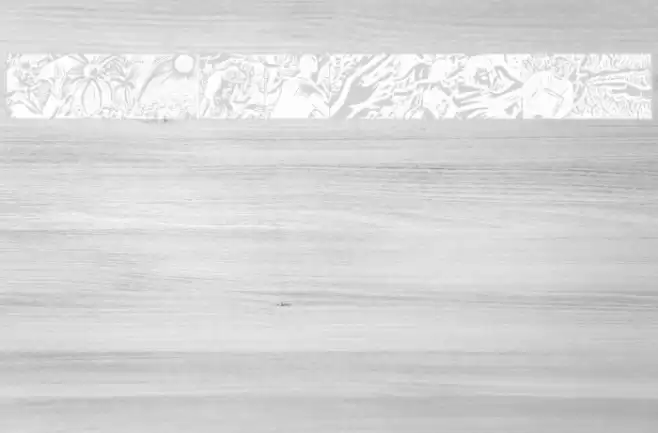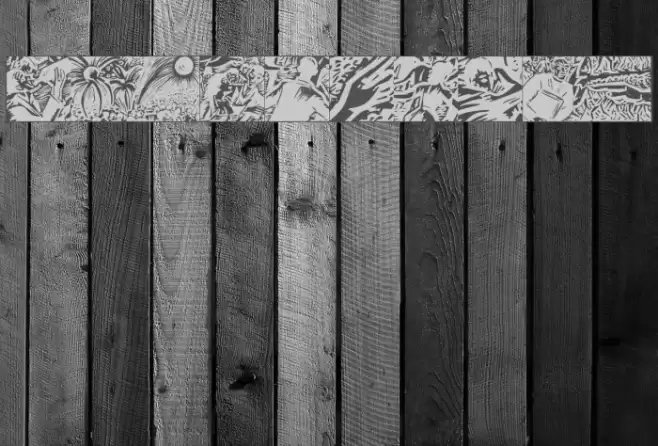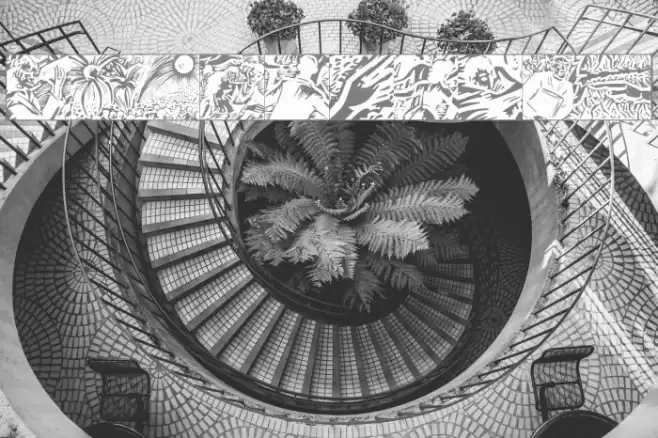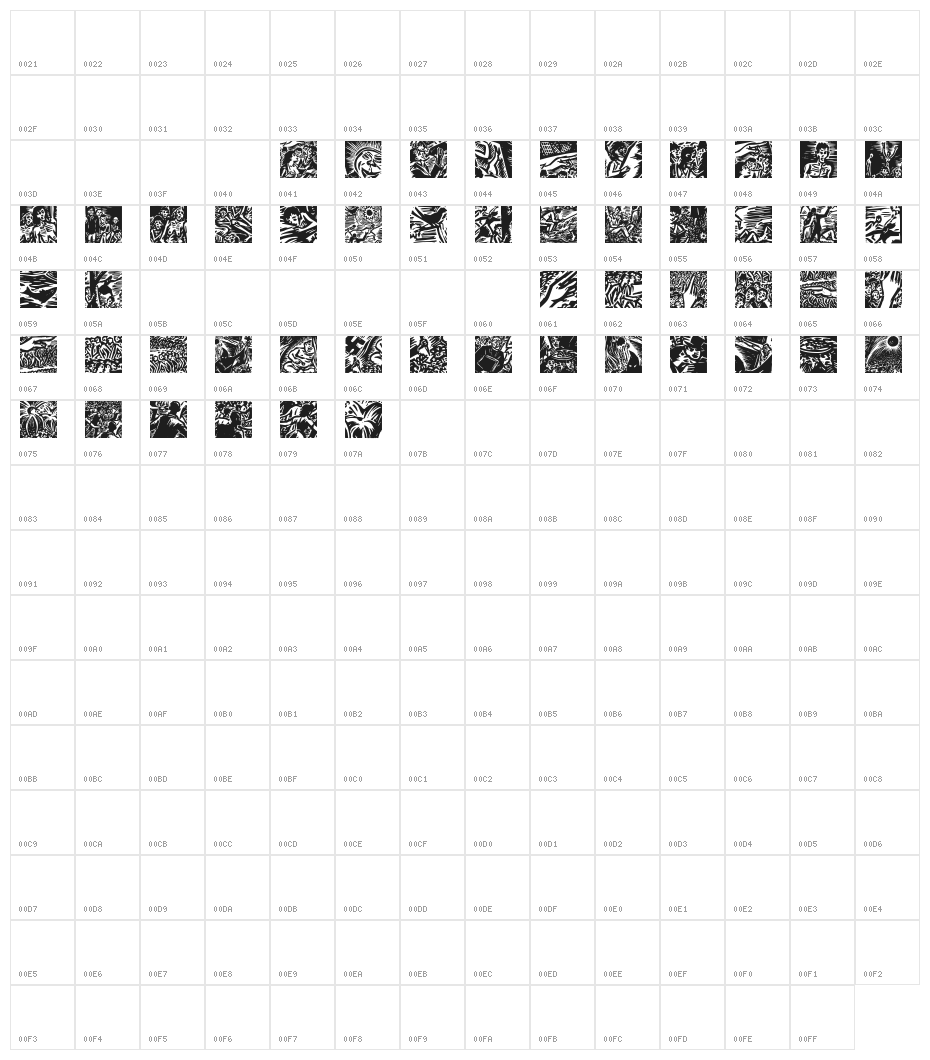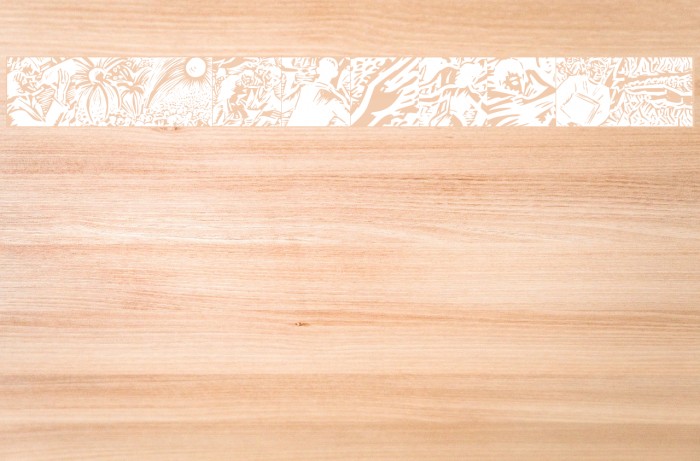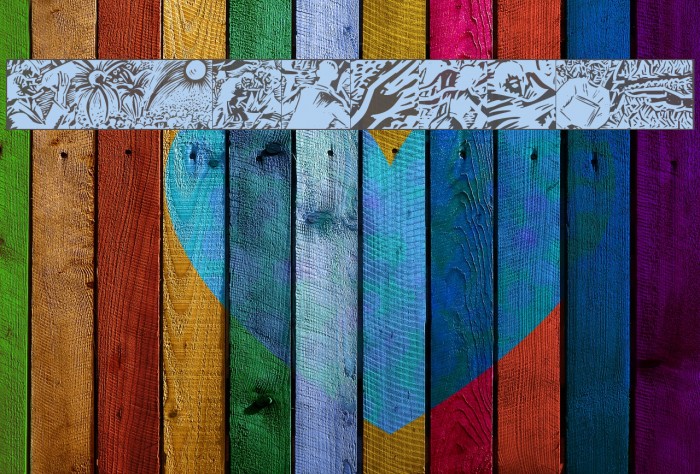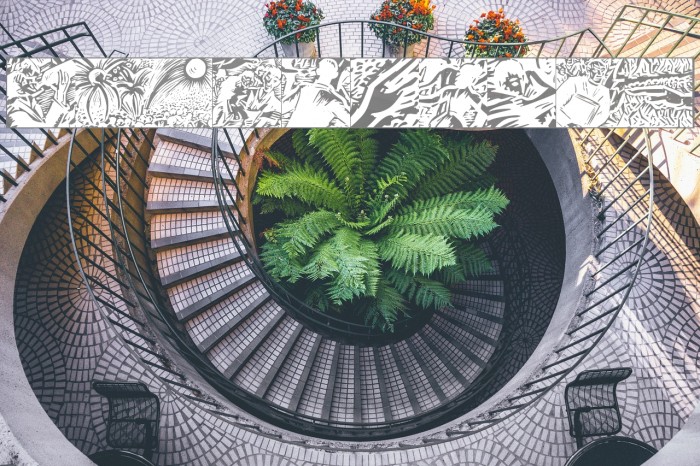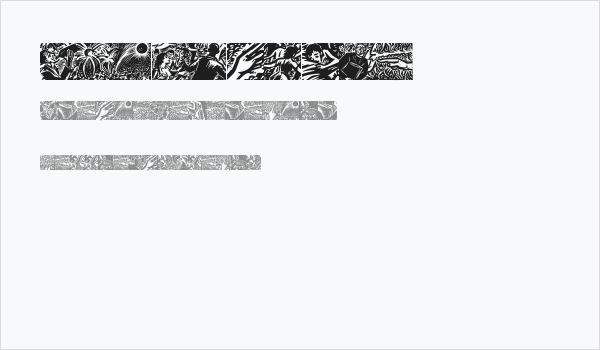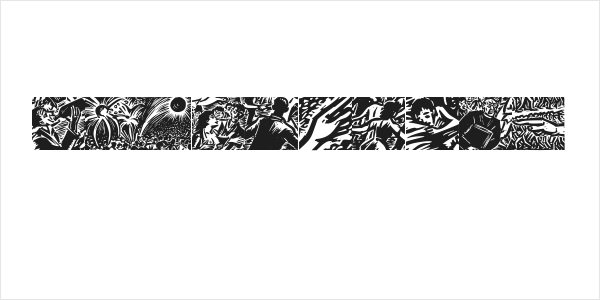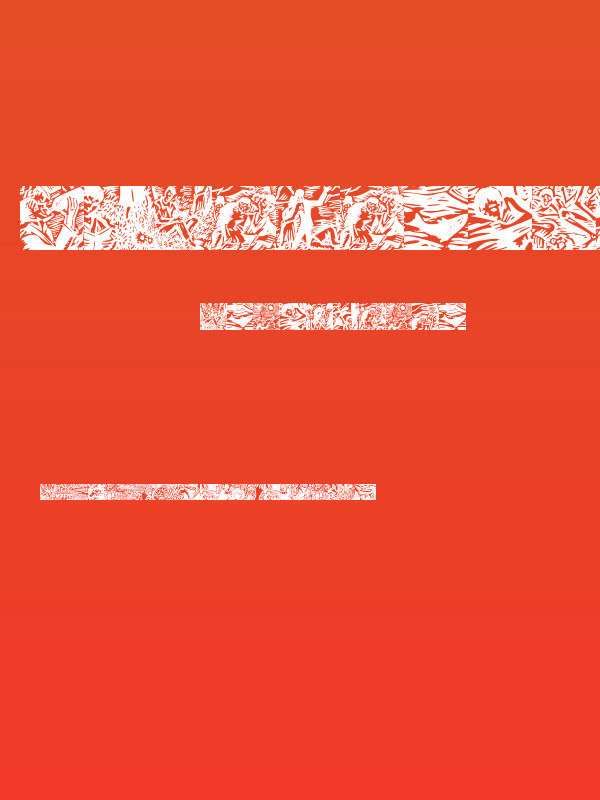
CutAwayOne Font
CutAwayOne Description
Highly decorative and illustrative typeface where each character is formed from intricate black-and-white woodcut-style scenes, creating a narrative or visual story within each glyph. The design is dense, with high contrast and detailed linework, making each letter a unique artwork.
A narrative, woodcut-style decorative font with each character as a detailed illustration from Uncategorized fonts.
- Proposed Projects: Book covers, posters, album art, editorial illustrations, graphic novels, event branding, art exhibitions.
- Overall Style: Decorative, Artistic, Narrative
- Use Case: Headlines, Posters, Artistic projects, Display use